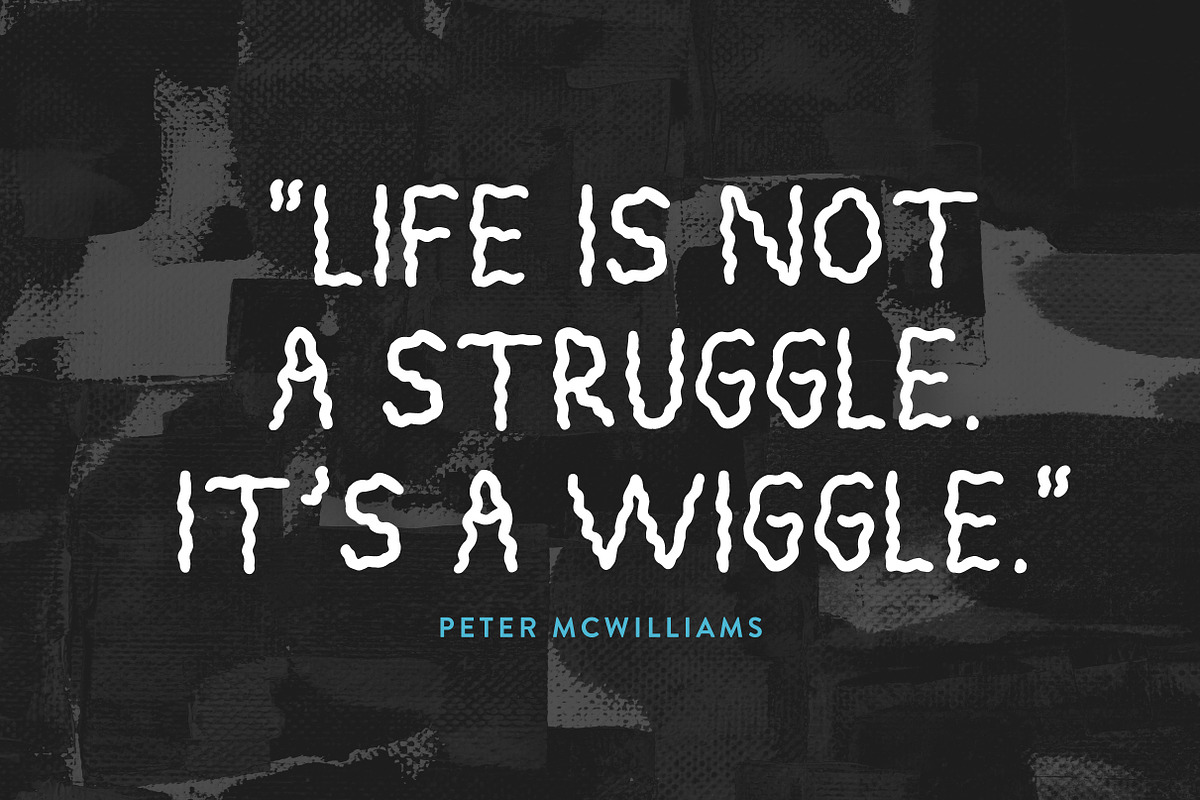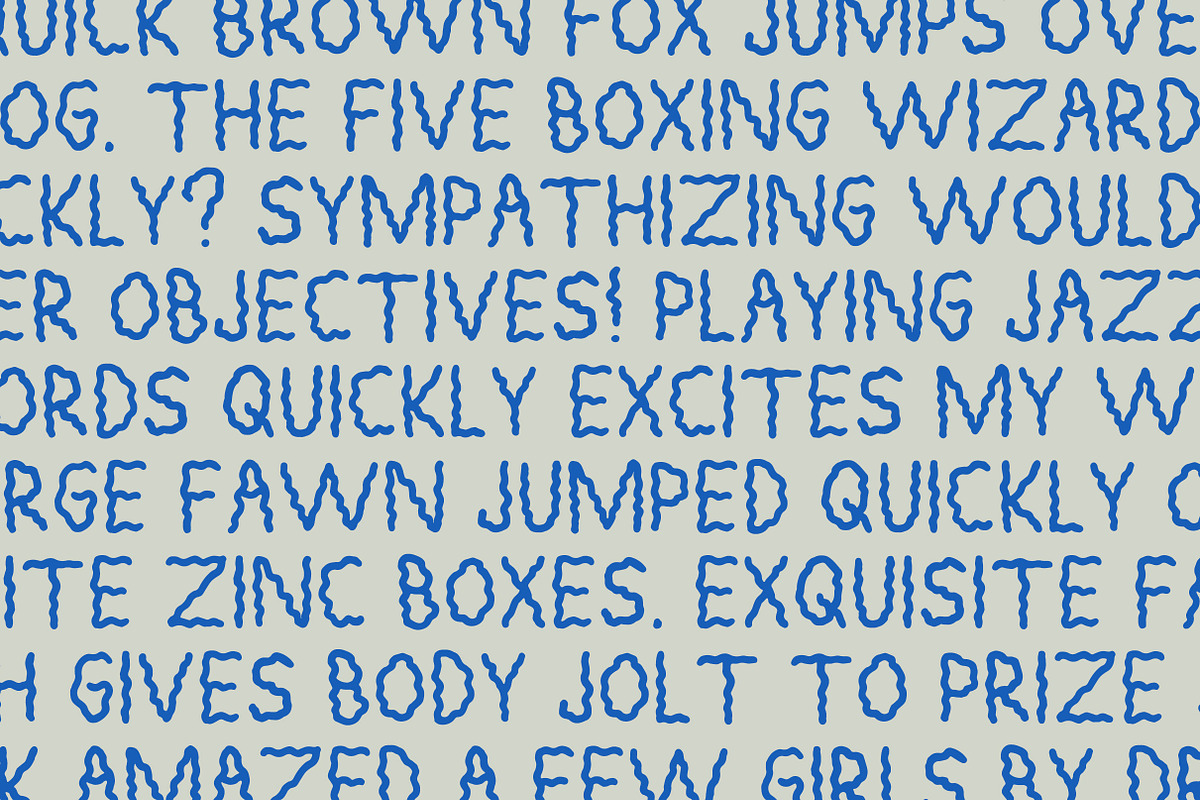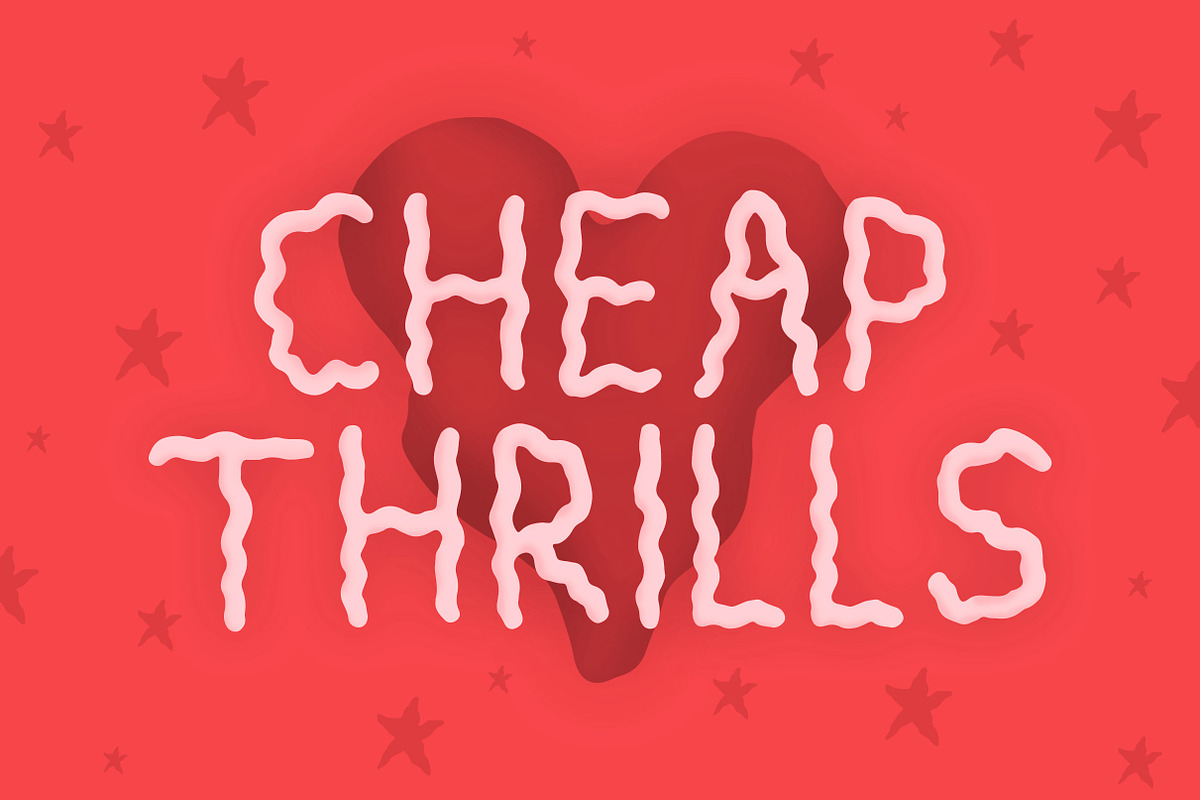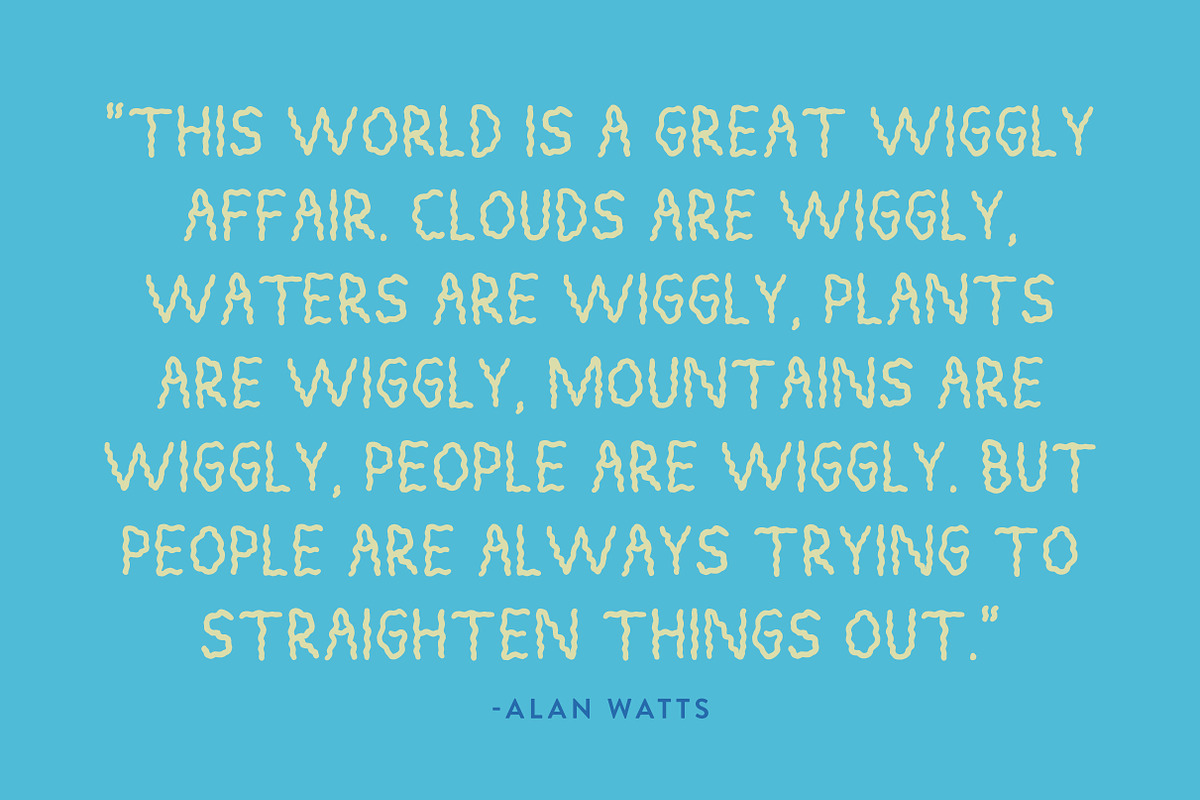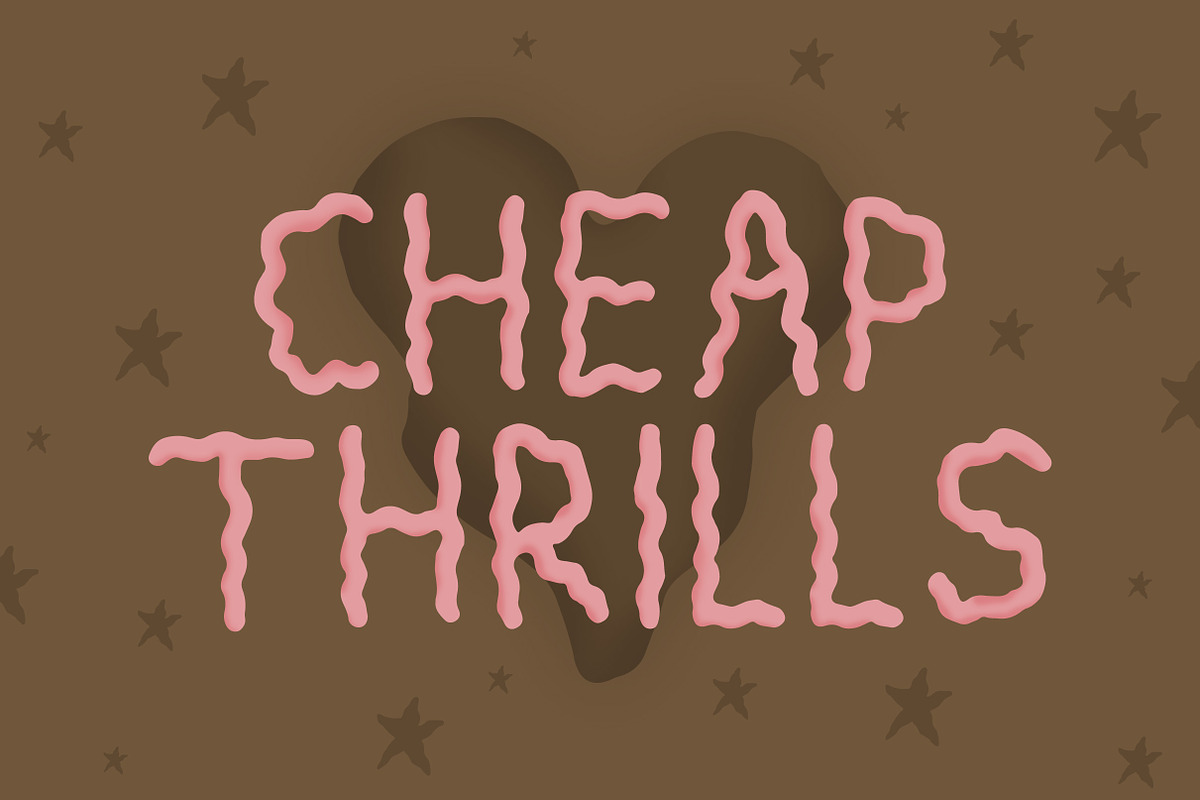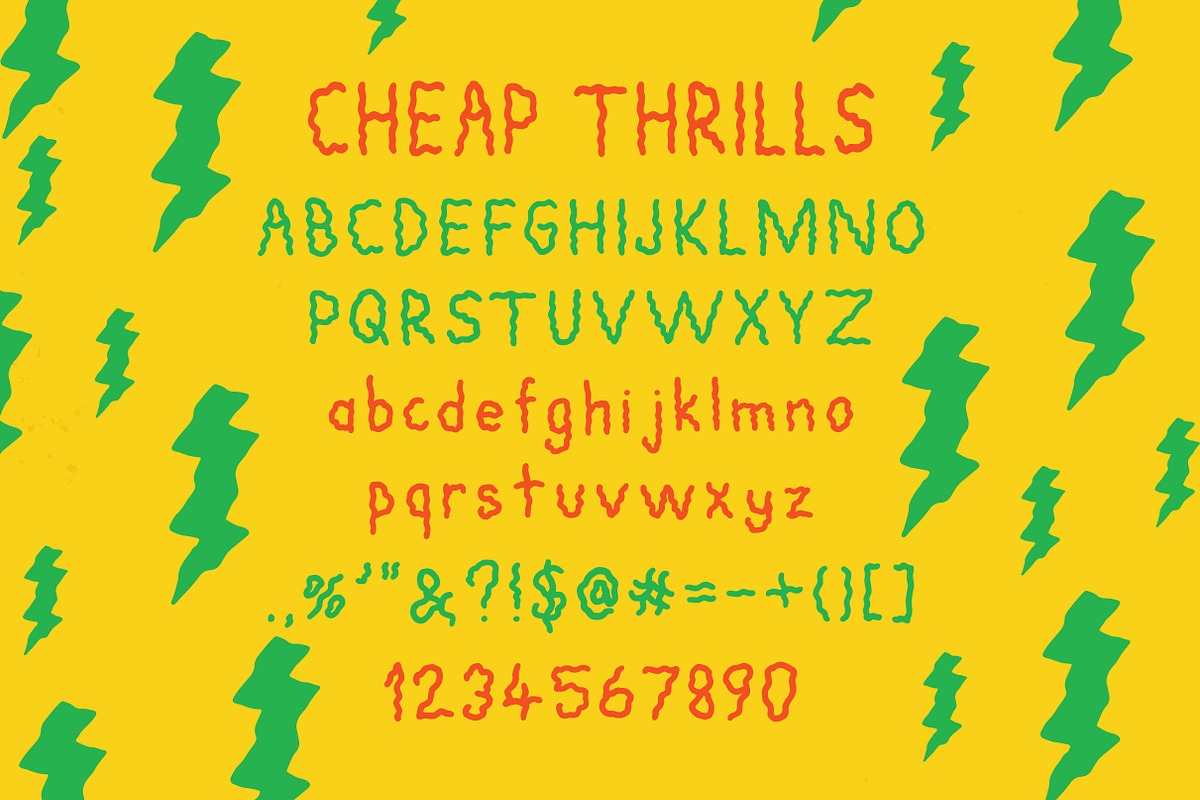
Cheap Thrills Font
Let loose with this outside-the-lines font. Live a little! What are you designing? Go a little crazy with it! Because you deserve to have a little fun sometimes. Make your logos, posters, products and invites stand out - you're not boring and neither is your graphic design!